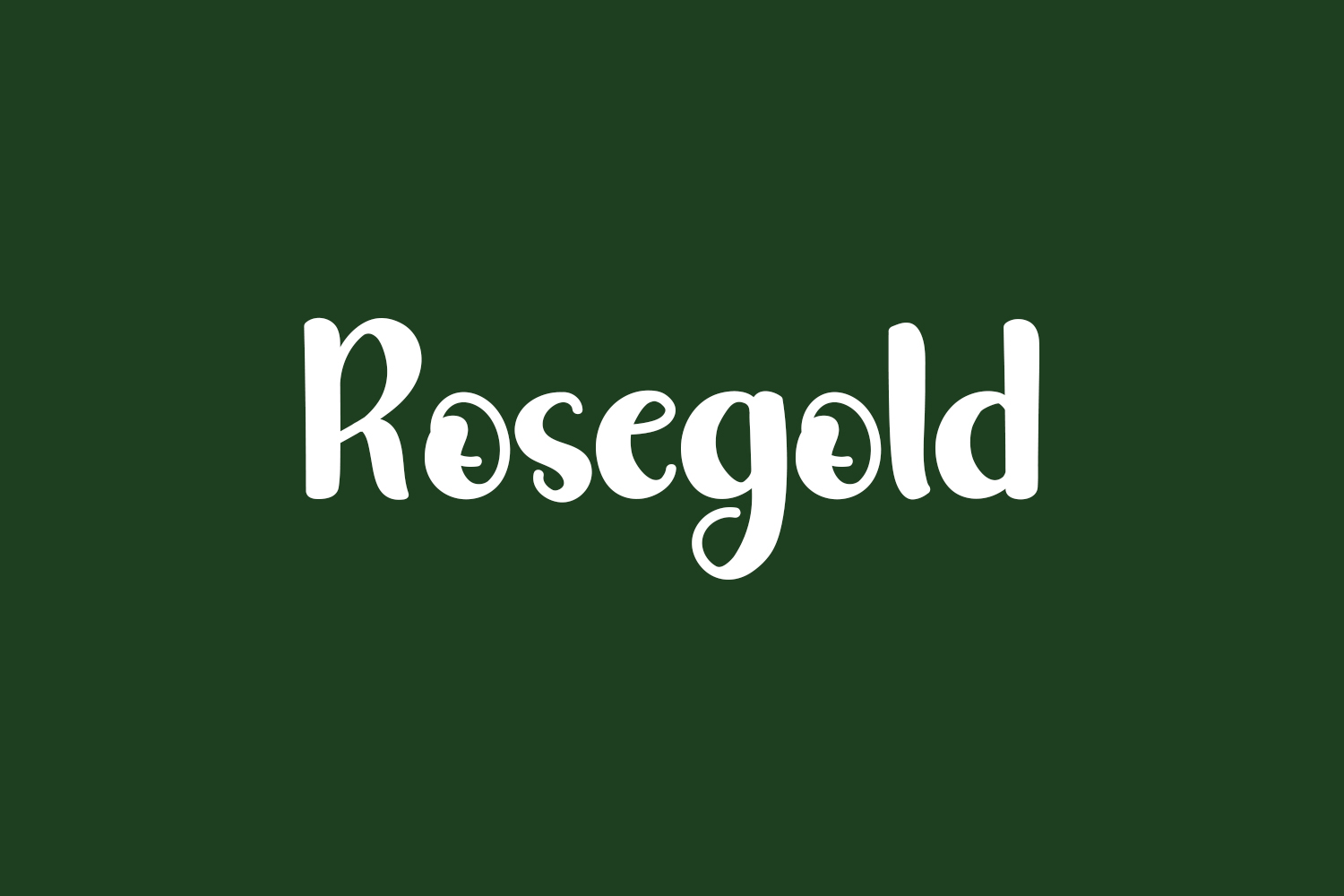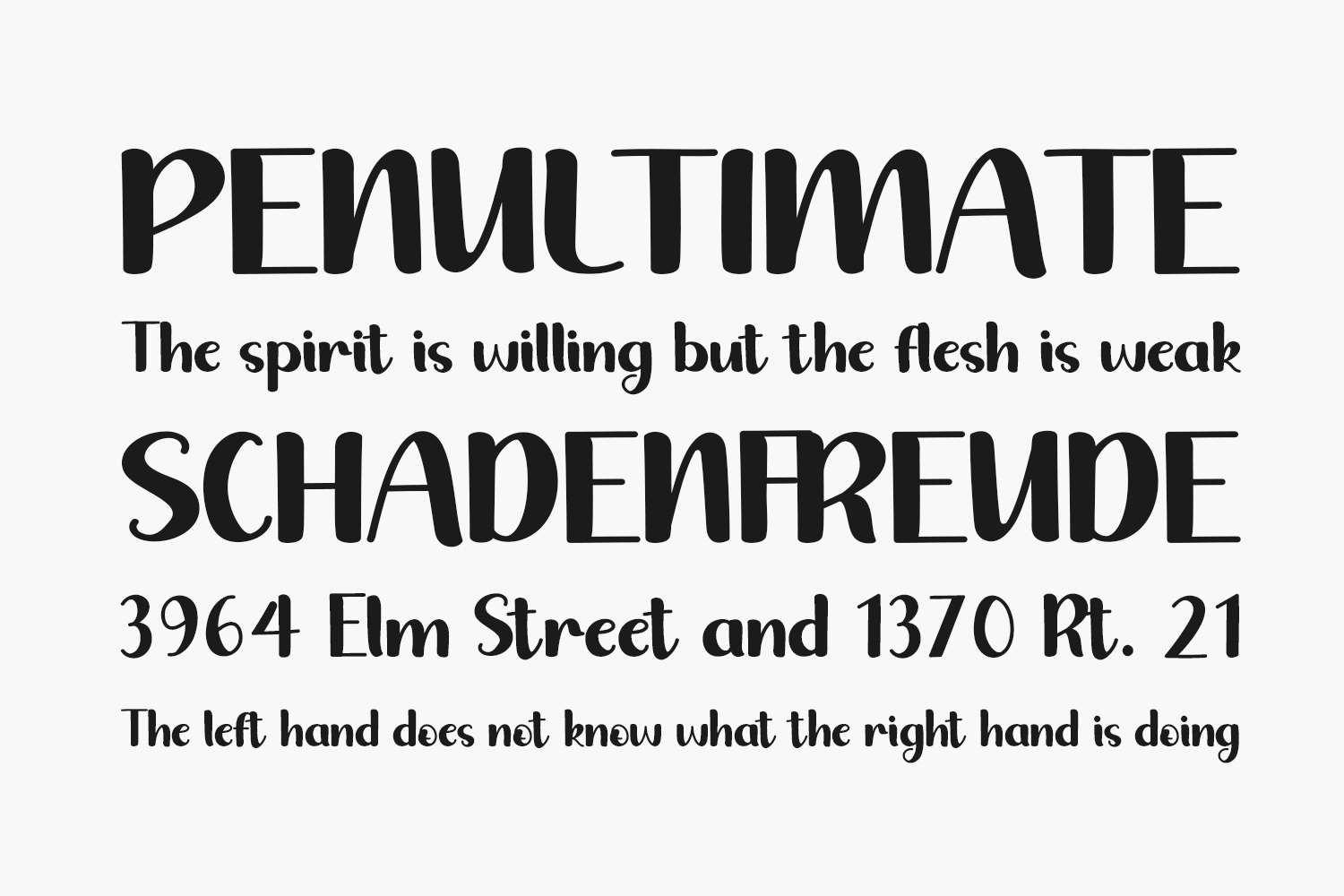
Rosegold Free Font is a sophisticated script font boasting a seamless blend of elegance and modern flair. Its flawless form strikes a harmonious balance, neither too thin nor too thick, creating a captivating and diverse typographical experience. Elevate the allure of your projects with this meticulously designed font, adding a touch of refined beauty to every creative endeavor. Rosegold Free Font is free for personal use only. Please purchase the full version for commercial use.
Designed by Lontong Lodeh